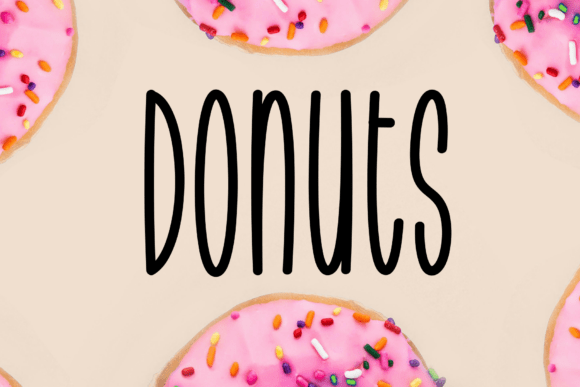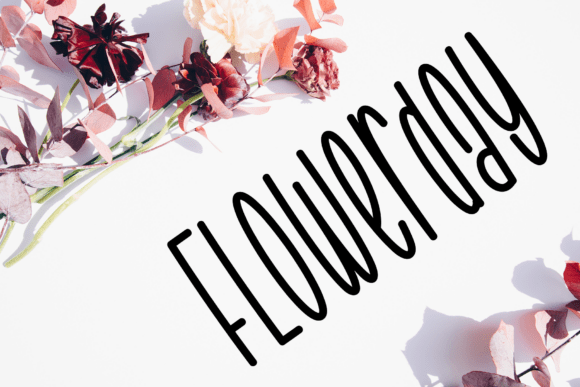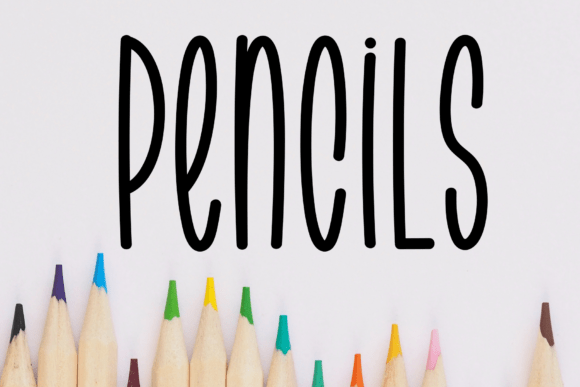
Introduction to Journal School Font
Who among us hasn’t spent hours poring over handwritten notes in a worn journal, the scribbled pages a testament to the memories and ideas that fill our minds? As designers, we know the value of a well-crafted font in capturing the essence of a moment or a brand. And when it comes to creating high-quality designs for a creative project, the right font can make all the difference. That’s why we’re excited to introduce you to the Journal School Font, a beautiful display font that embodies the charm of academic journals and handwritten notes.
With its tall, slender stems and playful, uniform weight, Journal School Font offers a quirky yet organized aesthetic that’s perfect for designs with limited horizontal space. Whether you’re working on a design project for a boutique stationery brand or a classroom newsletter, this font adds an approachable, artisanal touch to your typography. And the best part? You can download it for free, making it a valuable resource for designers looking to elevate their designs without breaking the bank.
Key Features of Journal School Font
- High-quality design resource ideal for creative projects, offering a unique and stylish aesthetic.
- Transparent background, allowing for easy customization and integration into various design elements.
- Designed with a focus on readability and clarity, making it suitable for a wide range of applications, from print to digital media.
- Unique characteristics include its elegant and sophisticated feel, making it perfect for academic, educational, and professional settings.
Honest Review: Journal School Font
I recently stumbled upon the Journal School Font, and I must say, it’s been a great addition to my design resource library. The font is perfect for any creative project that requires a high-quality, yet subtle, text element. One of the standout features is the transparent background option, which allows for seamless integration with any background image or color.
- High-quality font with a unique, yet timeless design
- Transparent background option for versatile use
- Wide range of font sizes and styles to suit various creative projects
- No bold or italic font weights available, which may limit its use in certain contexts
- The font may not be suitable for very large-scale projects, as it can become difficult to read at certain sizes
Overall, I’m quite impressed with the Journal School Font. It’s a great design resource that can elevate any creative project with its high-quality, elegant design. While it may have some limitations, it’s definitely worth considering for your next design project.
With Journal School Font, you can create high-quality designs with a transparent background, perfect for a variety of applications.
With Journal School Font, you can create professional-looking designs with ease.
2. Use Journal School Font in combination with other design elements to create a cohesive look.
3. Take advantage of the transparent background feature to create eye-catching designs.
Common Use Cases for Journal School Font
Journal School Font is a versatile design resource that can be used in a variety of applications, including:
1. Blog posts and articles.
2. Social media graphics.